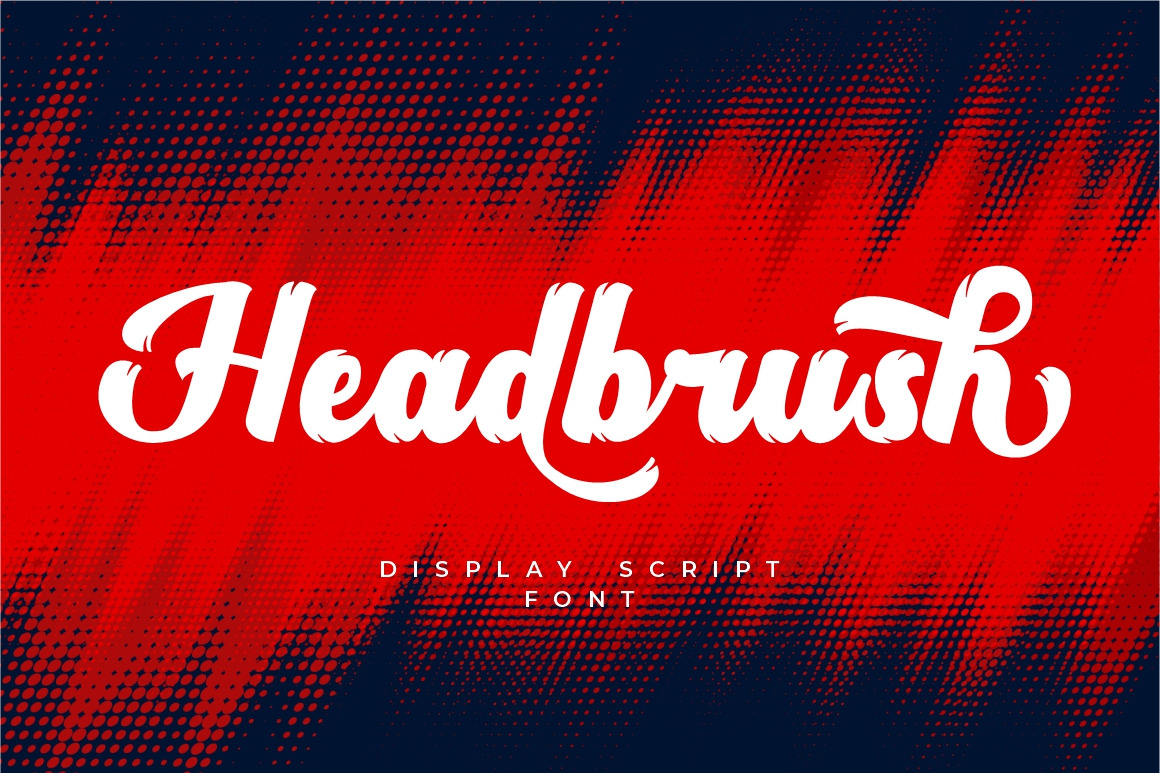
Headbrush - Display Script Font
Headbrush
Headbrush is a bold script font with brush effects on each character. These effects make this font unique and different. You can use this font for making an awesome logo, apparel projects, signature, album cover, poster, label, typography, branding, magazine, social media, & advertisements, but also works great for other projects.